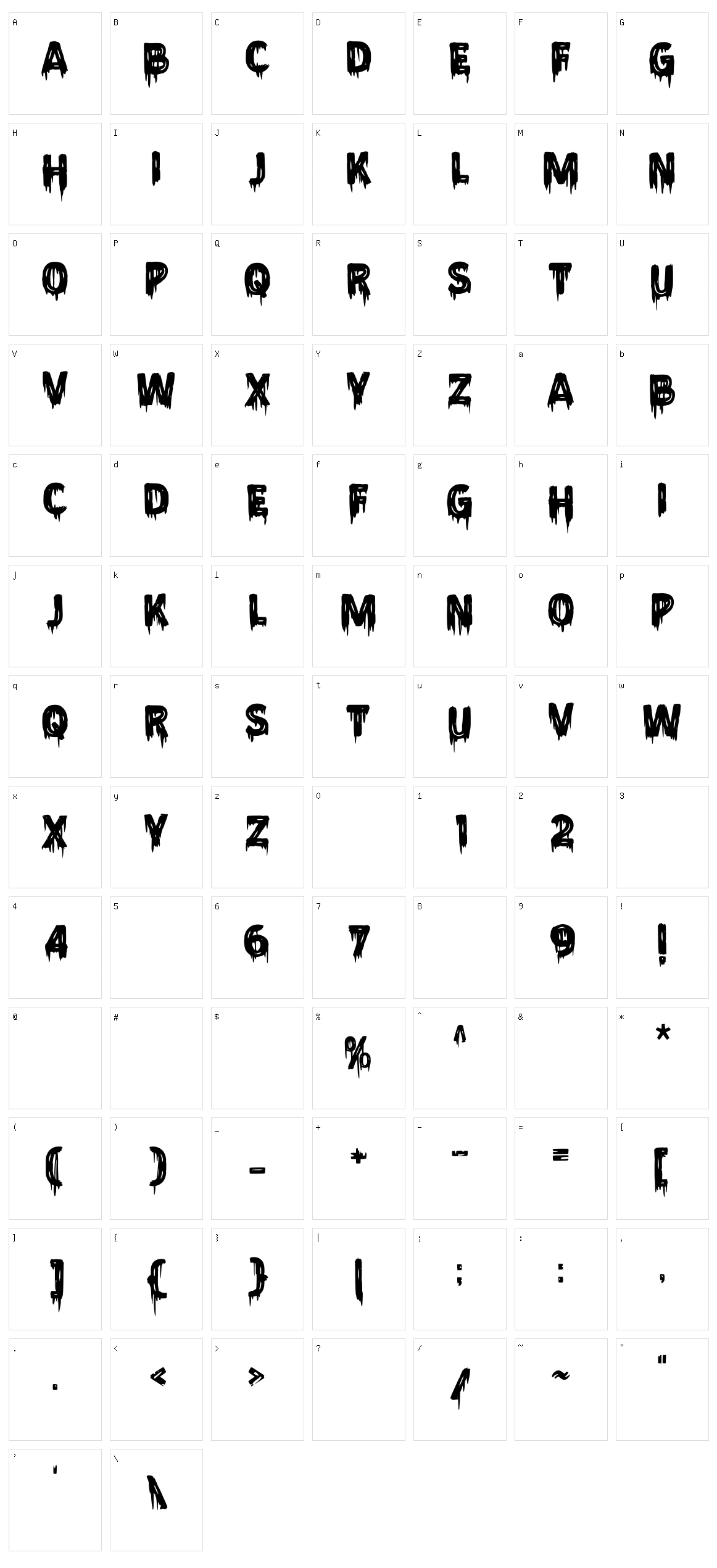
The free font Lonesome Zombies is carefully designed by Gassstype, showcasing a thoughtful balance of creativity and usability and falls under the Horror font style. When you download the ZIP file, it contains only 414.55 KB of font files, making it lightweight and quick to download. Please review the license details below to understand permitted usage and distribution rights. If license information is not available, we recommend using this font for personal projects only or contacting the author directly for commercial usage permissions.